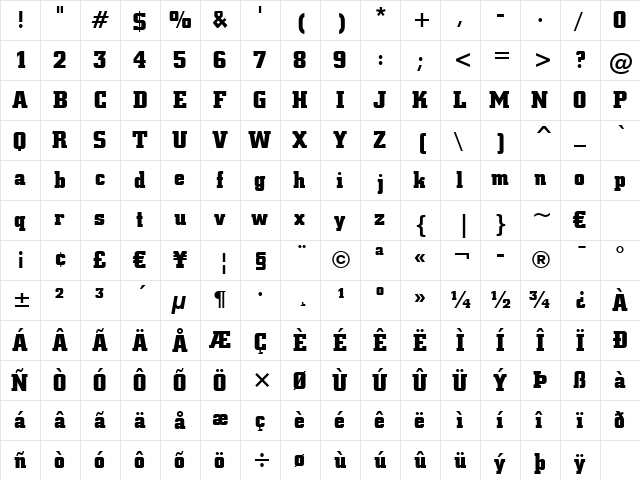
SquareSlab711 Bd BT Bold
Design Context for SquareSlab711 Bd BT Typeface
SquareSlab711 Bd BT features prominent, blocky serifs that give it a confident, grounded presence — equally at home in editorial settings and bold branding work. The heavy weight commands attention and anchors typographic hierarchies.
Works well in editorial design, news publishing, impactful branding, and poster typography.
Pro Tip: Try SquareSlab711 Bd BT set tight in headlines for a classic editorial feel. Its slab serifs create strong horizontal rhythm that anchors a page layout.